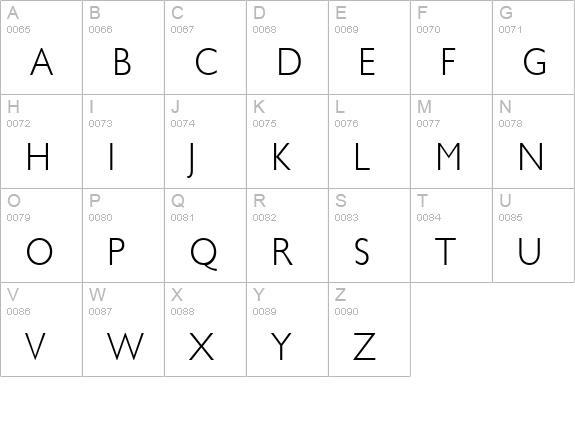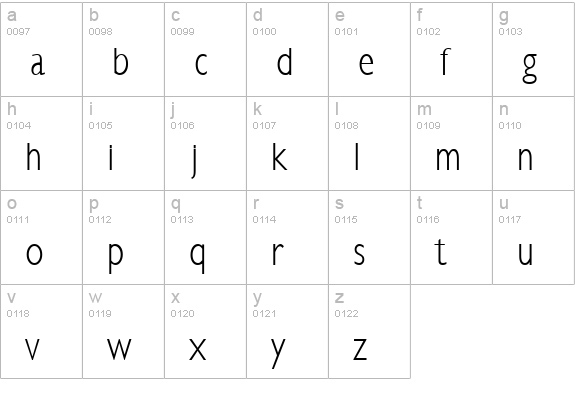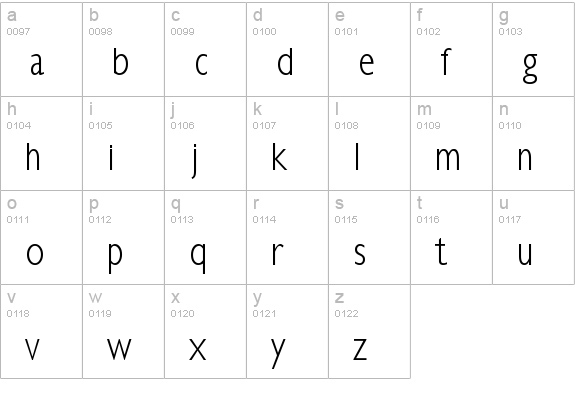
Klill-LightTallX Font Details
Introducing Klill-LightTallX, a font that exudes elegance and sophistication with every stroke. This beautifully crafted typeface combines the perfect balance of tall letterforms and a delicate light weight, making it an ideal choice for projects that require a touch of class. Klill-LightTallX embraces a sense of modernity while still retaining a timeless charm. Its clean and crisp lines effortlessly capture attention and allow for easy legibility across a variety of mediums. Whether you're designing a captivating logo, creating eye-catching headlines, or designing a sleek website, this font will undoubtedly elevate your work to new heights. One of the standout features of Klill-LightTallX is its versatility. From fashion magazines to luxury brand advertising, this font seamlessly adapts to any design concept, adding a touch of refinement and sophistication. Its captivating presence on the page ensures that your message is communicated with style and finesse. What's even better is that Klill-LightTallX is freely available to download at FontsMarket.com. This means that you can effortlessly enhance your creative projects without breaking the bank. Embrace the freedom to express your unique vision and captivate your audience with this stunning font. So why wait? Download Klill-LightTallX today and unleash the power of elegance and sophistication in your designs. Upgrade your typography game and create visually stunning works of art that leave a lasting impression. With Klill-LightTallX, the possibilities are endless, and the results are bound to be extraordinary.